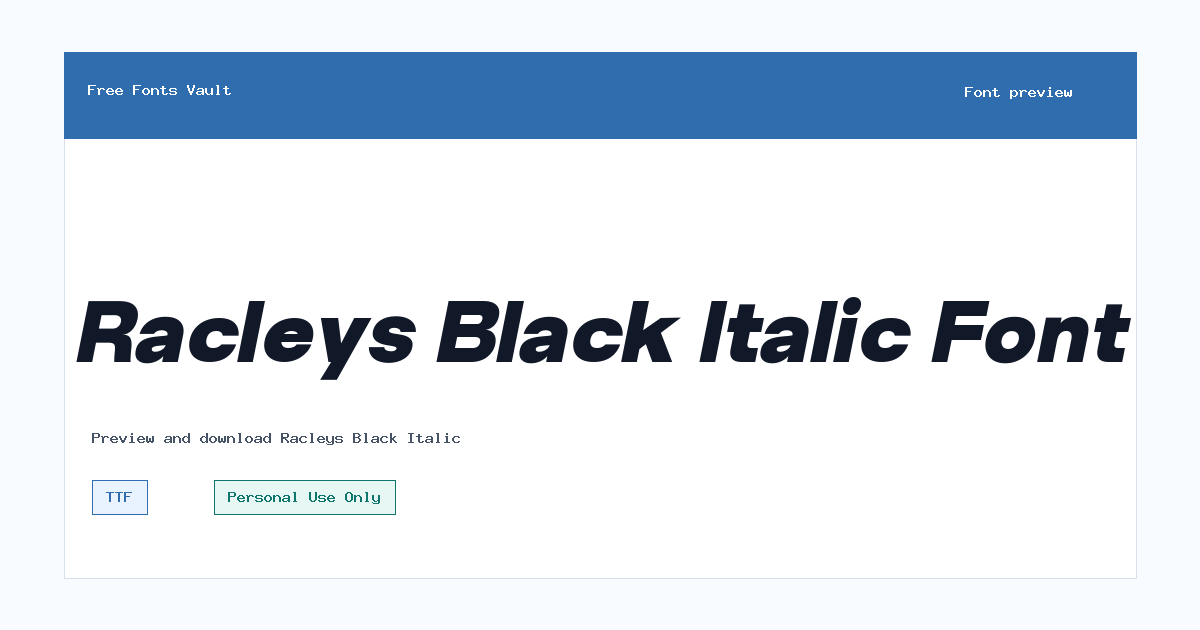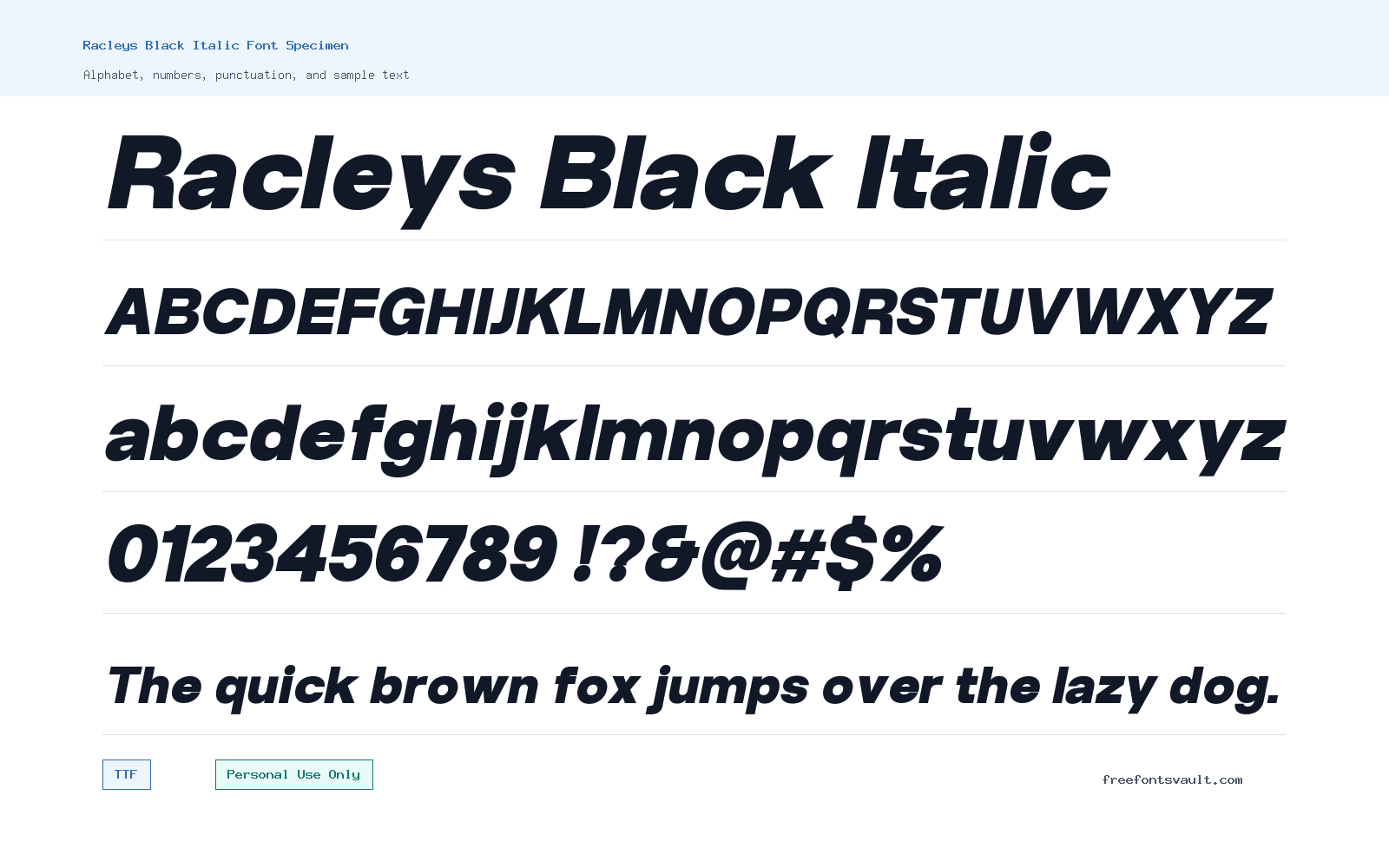
Racleys Black Italic
Racleys Black Italic Font
Racleys Black Italic font.
Racleys Black Italic is a heavy italic sans serif style with a strong forward slant, made for bold display work rather than quiet body text.
About Racleys Black Italic
Racleys Black Italic gives text a thick, energetic look. The 900 weight makes the letters feel dense and assertive, while the italic angle adds movement. That combination works well when a design needs a short phrase to feel active, modern, or attention-grabbing. It is better suited to titles, logo drafts, poster lines, social graphics, product mockups, and hero text than to long reading passages. Because the style is both heavy and slanted, it can quickly dominate a layout, so it usually works best when the surrounding design stays simple.
For pairing, keep the companion type simple. A clean regular sans serif can handle menus, captions, descriptions, and supporting text while Racleys Black Italic carries the headline. Avoid pairing it with another loud italic or ultra-bold display face unless the design is intentionally expressive, because the result can become visually crowded. If you are making a poster, try generous spacing, a plain background, and a restrained color palette so the font’s weight and slant can do the work.
• Heavy 900 weight for strong display headings and short standout text
• Italic style with a forward-leaning look that adds movement
• Best used in short phrases rather than long paragraphs
• Useful for previewing bold logo ideas, posters, social graphics, and web hero mockups
• Logo concepts and wordmark experiments
• Poster titles and event graphics
• Website hero headings in mockups
• Social media quote cards and announcement graphics
• Packaging or label concept previews
• Bold display typography where a slanted style fits the message
The designer is listed as Glyphminds Studio, with Graphicted.Co also associated with the font information.
Start with short text and large sizes. Reduce clutter around the type, check spacing carefully, and pair it with a calmer sans serif for body copy or interface text. If you are testing a logo or poster, preview the exact wording first so you can judge balance, letter shapes, and readability before installing or using the font in a design file.
What kind of font is Racleys Black Italic?
It is a heavy italic sans serif display style. The weight is listed as 900, which makes it better for bold headings and short design text than for paragraphs.
Is Racleys Black Italic good for website text?
What should I pair with Racleys Black Italic?
Pair it with a simple regular sans serif for body copy, menus, captions, and supporting information. This helps the bold italic headline stay readable without making the layout feel too busy.